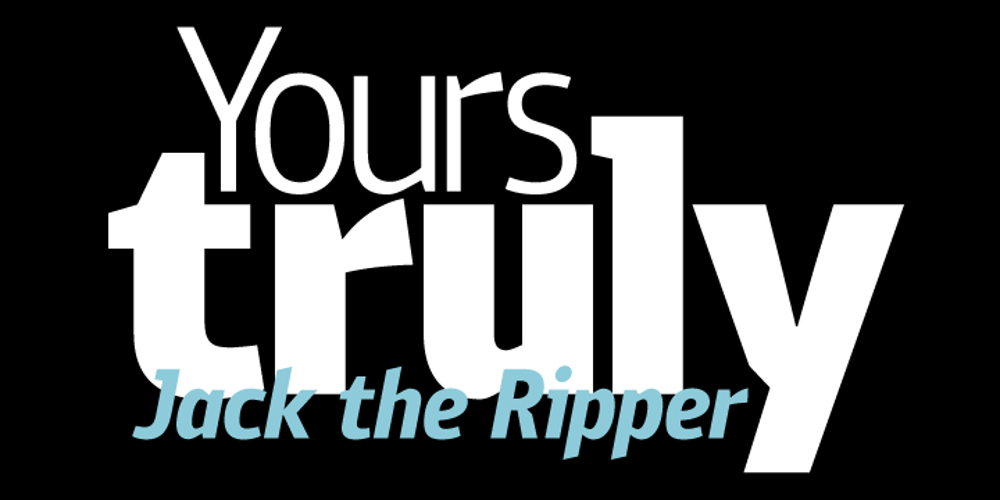
PF Bulletin Sans Pro Font Family was designed by Panos Vassiliou and published by Parachute. PF Bulletin Sans Pro contains 10 styles and family package options. This is a grotesque typeface which was derived from an older more simple version designed back in 2000. Bulletin Sans Pro is distinguished by its selective deep cuts which give this typeface a robust and contemporary look. These cuts become more apparent at larger sizes while they create a more subtle effect at smaller sizes. For intense titles try the black version. When space and legibility for long texts are critical, use the lighter versions. The family consists of 10 fonts—from black to light—including true italics. It supports 20 special OpenType features like small caps, fractions, ordinals, etc. and offers multilingual support for all European languages including Greek and Cyrillic. Finally, every font in this family has been completed with 270 copyright-free symbols, some of which have been proposed by several international organizations for packaging, public areas, environment, transportation, computers, fabric care and urban lifestyle.